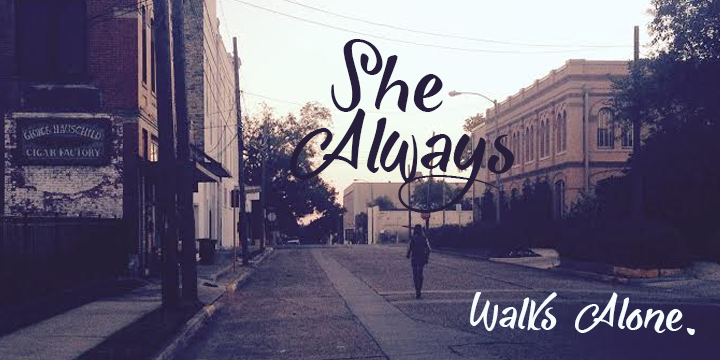
Font name: | She Always Walks Alone |
SHE ALWAYS WALKS ALONE DEMO is a demo version of a quirky brush font. For commercial use and/or full version and license please email me at myhandwritings@gmail.com Also feel free contatct me if you have any questions or feedback. You MAY NOT sell this font or claim them as your own. You MAY NOT edit or rename this font. You MAY NOT redistribute this font. Thank you & I hope you like this font, Roland http://www.rolandhuse.com https://www.facebook.com/pages/Runes-And-Fonts/123221817784772 |